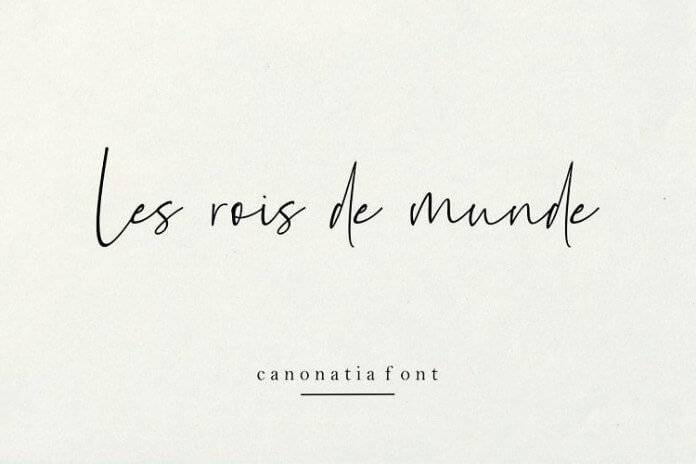
Canonatia Handwritten Font
Good day, world…!! Canonatia is a new font by Canonatia. This is a lovely handwritten script with a natural feel to it. It’s ideal for any premium projects, including exquisite logos and much more! Canonatia Handwritten Font is a new handwritten font that is both modern and attractive. Fikryal created and produced the font. In neutral tones like white or pink, the font looks fantastic.
The font was created with a light look in mind. This font is suitable for use in wallpapers with a thin texture. You may make it more appealing by adding an italic texture vibe. The typeface is a wonderful choice for new designers who are still getting their feet wet with fonts. You’re probably wondering what format this font will be available in, and the answer is that it will be available in both TTF and OTF formats. The typeface may be used on practically any device, from a computer to a laptop.
Canonatia- Handwritten Font is a new handwritten font that is both modern and attractive. It’s ideal for logos, branding, invitations, titles, wedding designs, social media posts, advertisements, product packaging, product designs, label, photography, watermark, special events, magazines, and websites, among other things. The typeface is also a wonderful choice for wallpapers; in particular, girls enjoy utilizing it in their girlie brands.
| Name | Canonatia Handwritten Font |
| Designer | Fikryal |